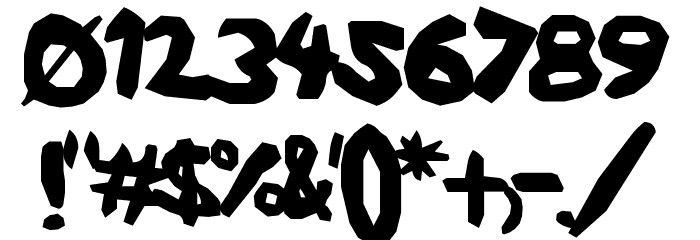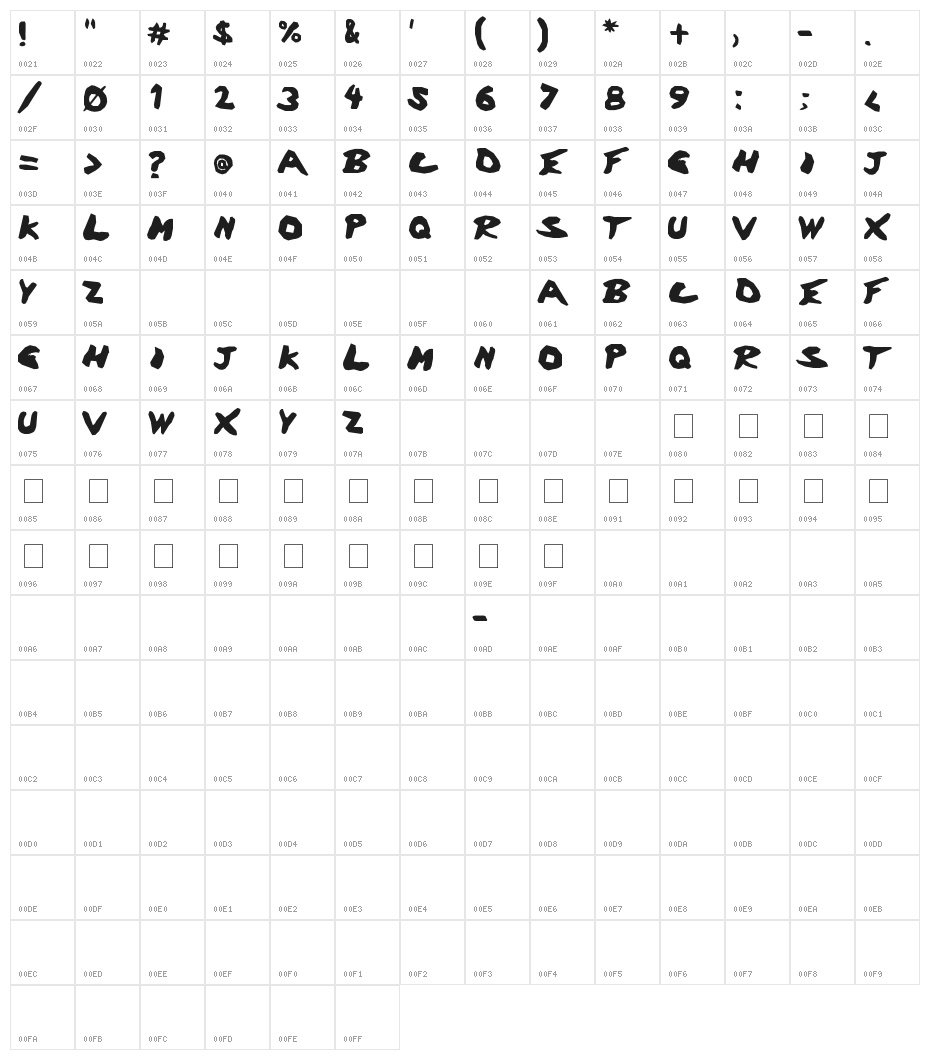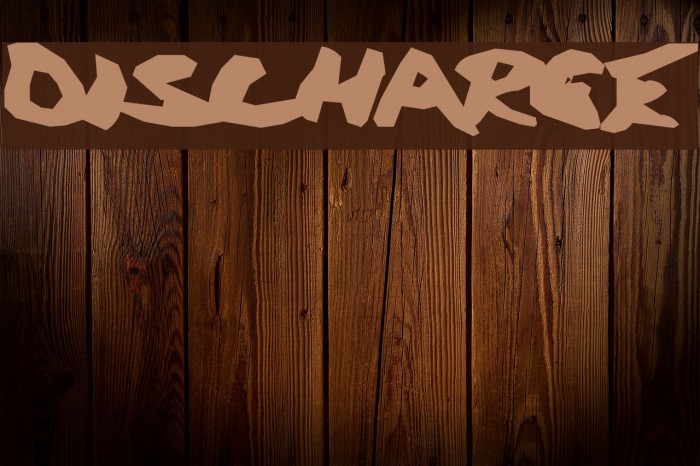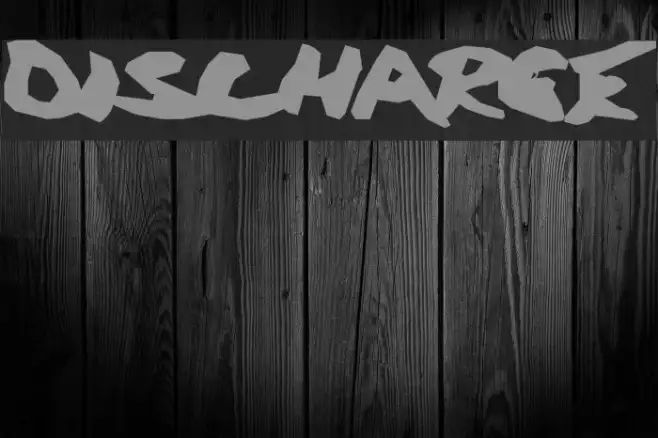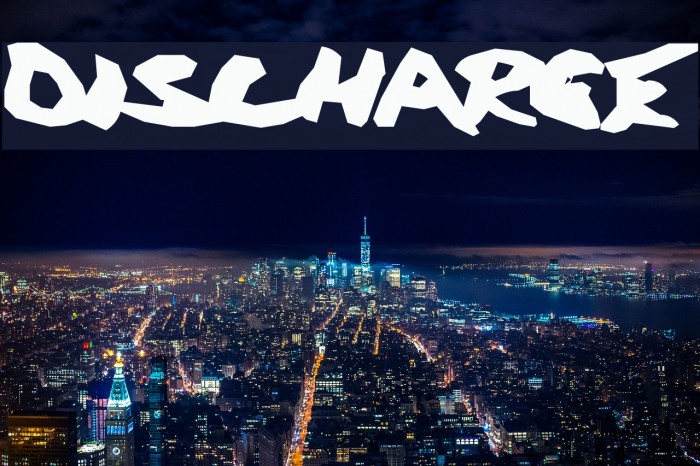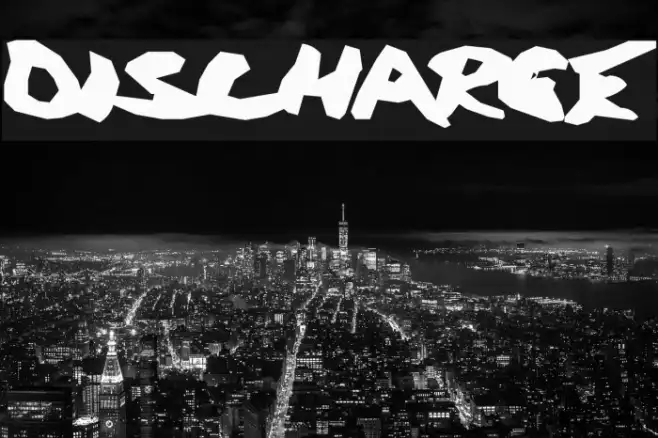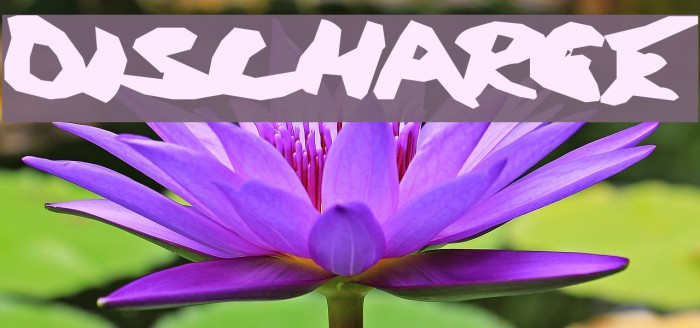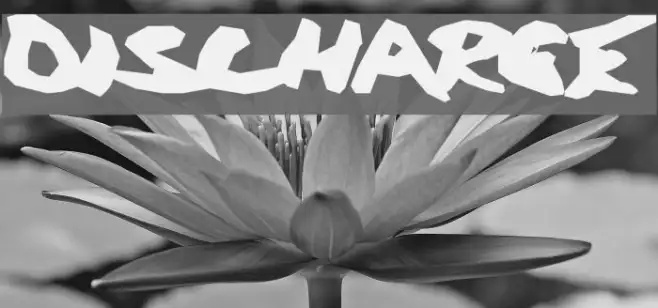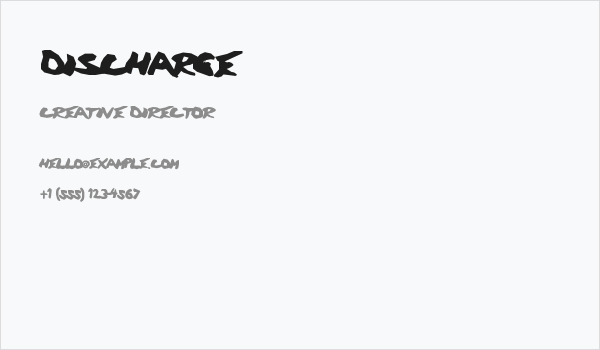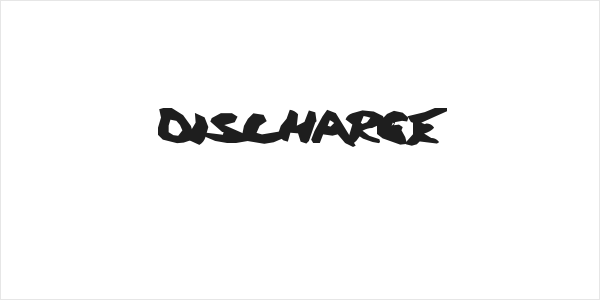
Discharge Font
Discharge Description
This font features a bold, aggressive style with thick, jagged strokes that give it a raw, energetic feel. The characters are heavily stylized, with sharp angles and a sense of movement, reminiscent of graffiti or street art. The uppercase and lowercase letters maintain a consistent weight, contributing to a cohesive look. Numbers and special characters follow the same dynamic style, making them stand out. The overall appearance is striking and unconventional, perfect for projects that require a bold statement.
| Overall Style | Modern, Urban |
| Use Case | Logos, Posters, Headlines |
| Proposed Projects | Ideal for album covers, streetwear branding, skateboarding graphics, or any project seeking an edgy, urban aesthetic. |